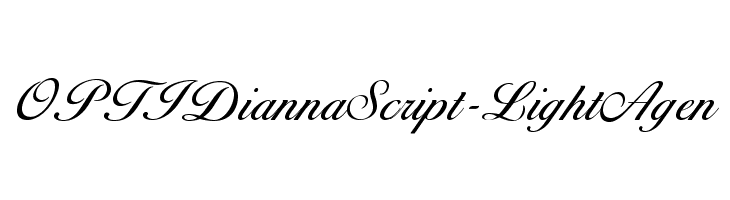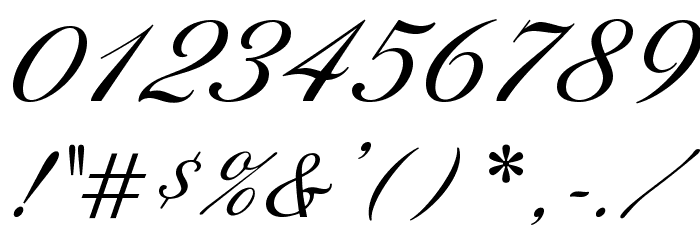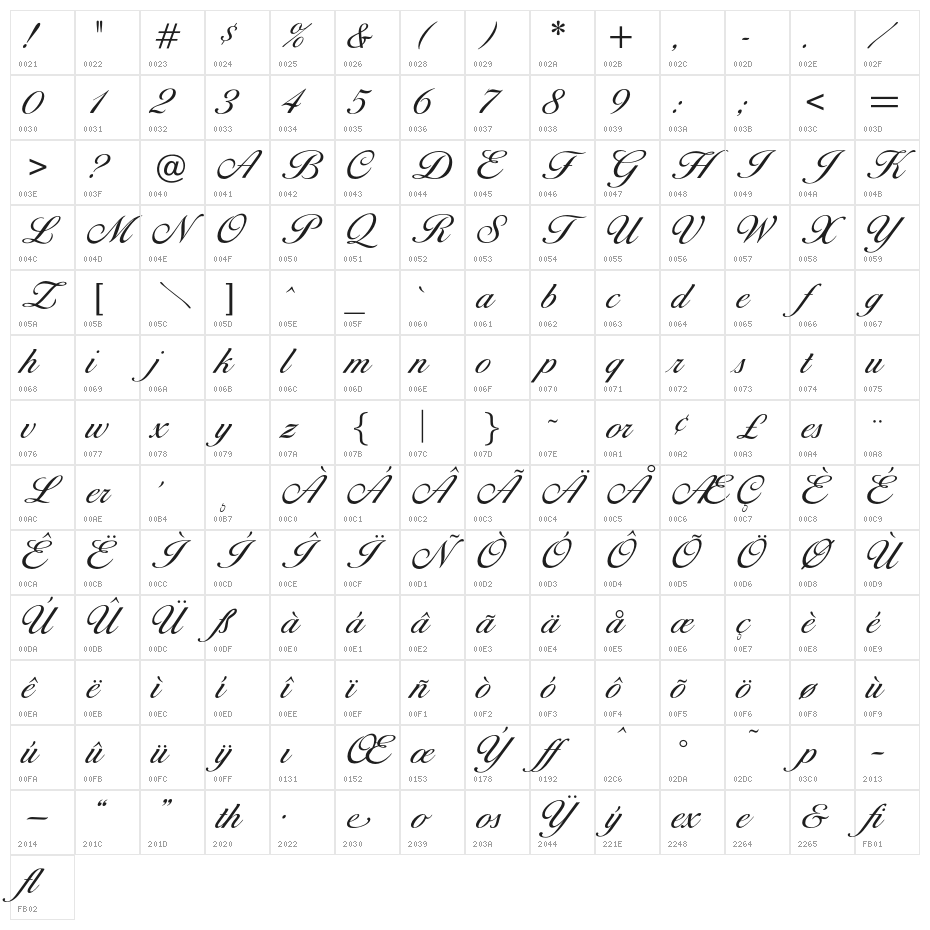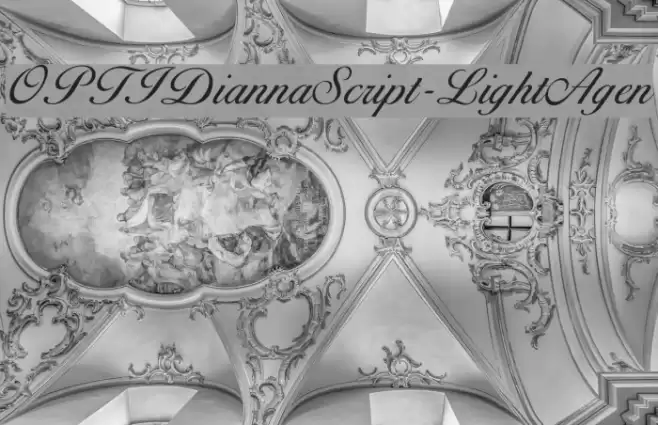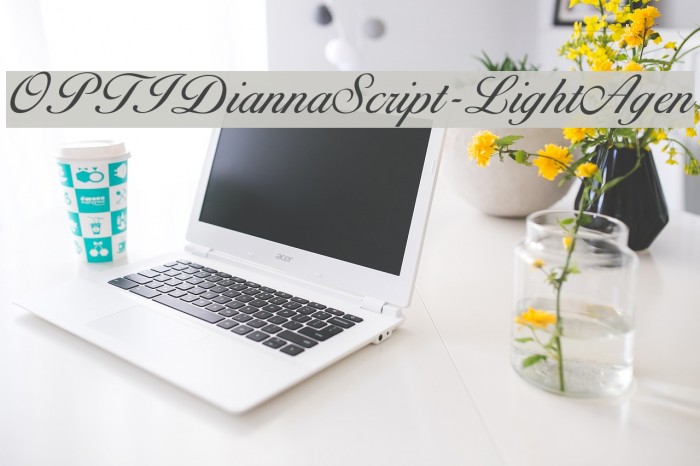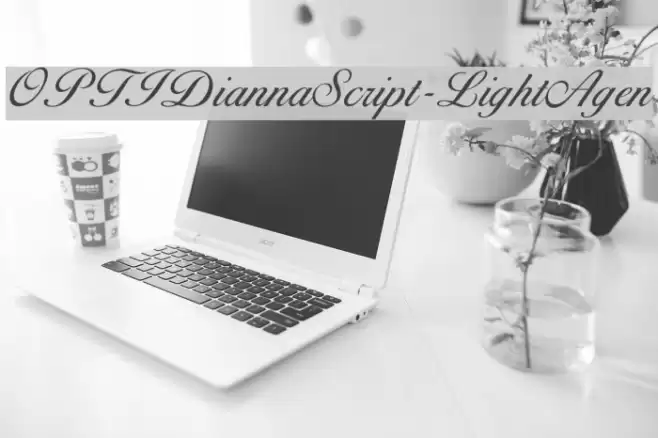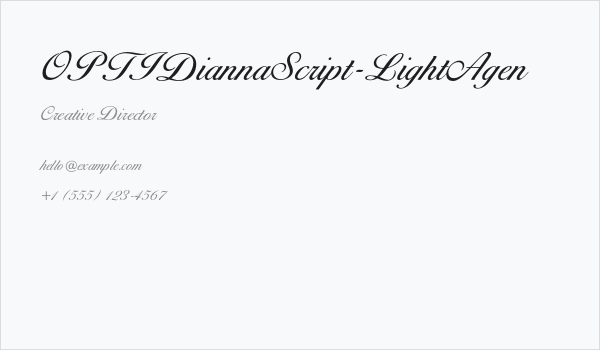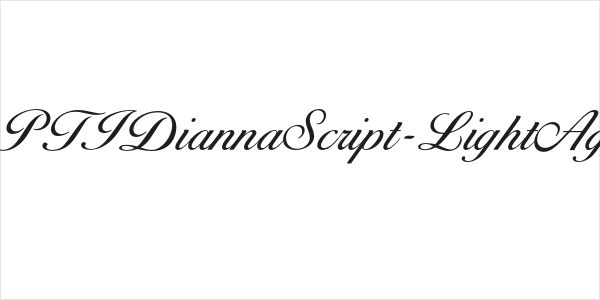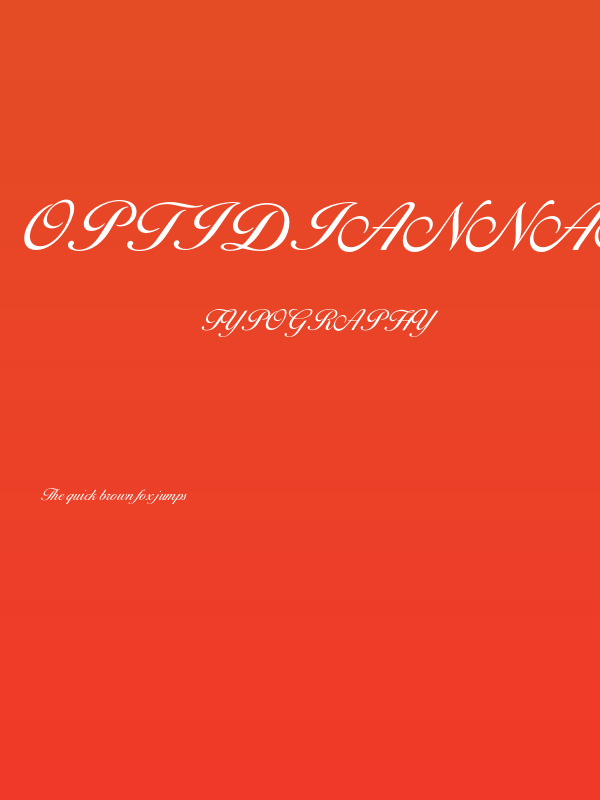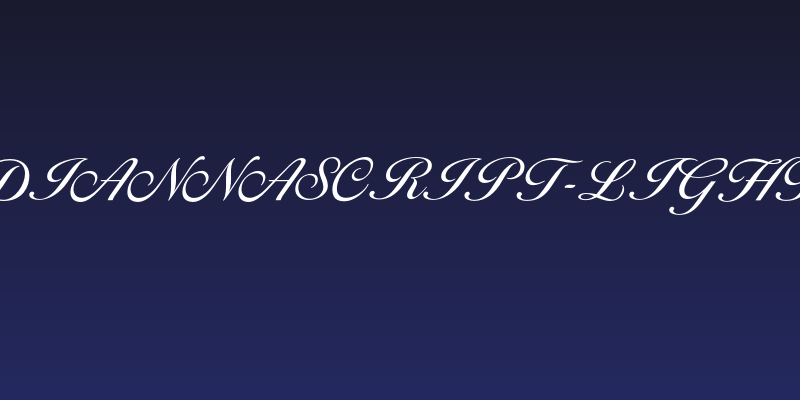
OPTIDiannaScript-LightAgen Font
OPTIDiannaScript-LightAgen Description
This elegant script font features a flowing, cursive style with a refined and sophisticated appearance. The characters are gracefully connected, creating a seamless and fluid look. The uppercase letters are slightly more ornate, with delicate flourishes that add a touch of elegance. The lowercase letters maintain a consistent slant, enhancing the overall harmony of the design. The numerals are clear and stylish, matching the script's aesthetic. Special characters are thoughtfully designed to complement the font's overall style, making it versatile for various uses.
| Use Case | Headlines, Invitations, Branding |
| Proposed Projects | Ideal for wedding invitations, elegant branding, personal signatures, and decorative headings. |